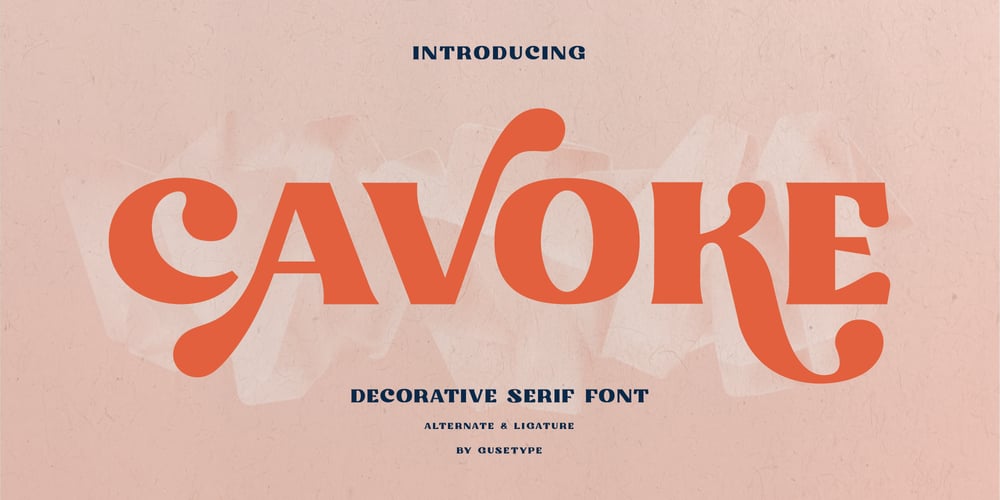
Cavoke Font Family was designed by Guntur Septyan and published by GuseType. Cavoke contains 1 styles and family package options. Cavoke is a decorative serif font. This font can be used for retro and vintage designs, you also can use for posters, headlines, logotypes, magazines, brand identity and moreFeature:- Kerning- Alternative Style and Ligature- Uppercase and Lowercase Letters- Numeral- Punctuation and Symbols- Multilingual Supports